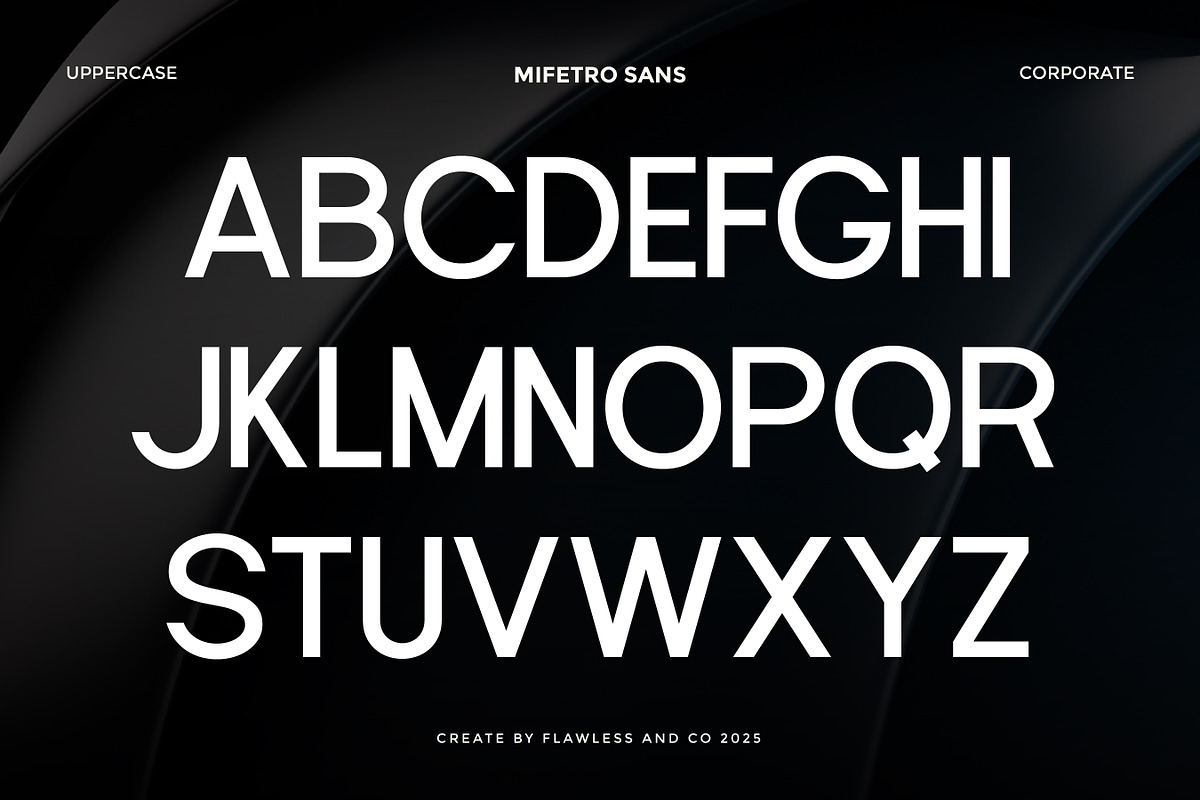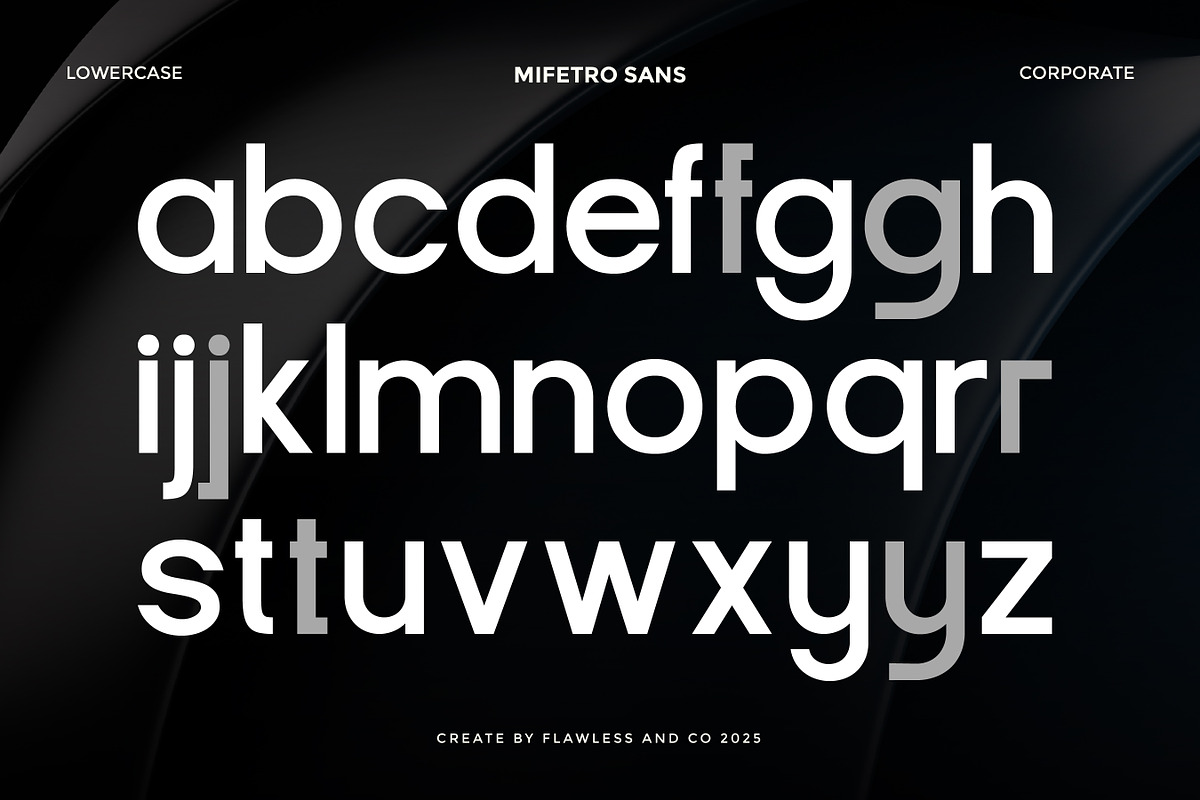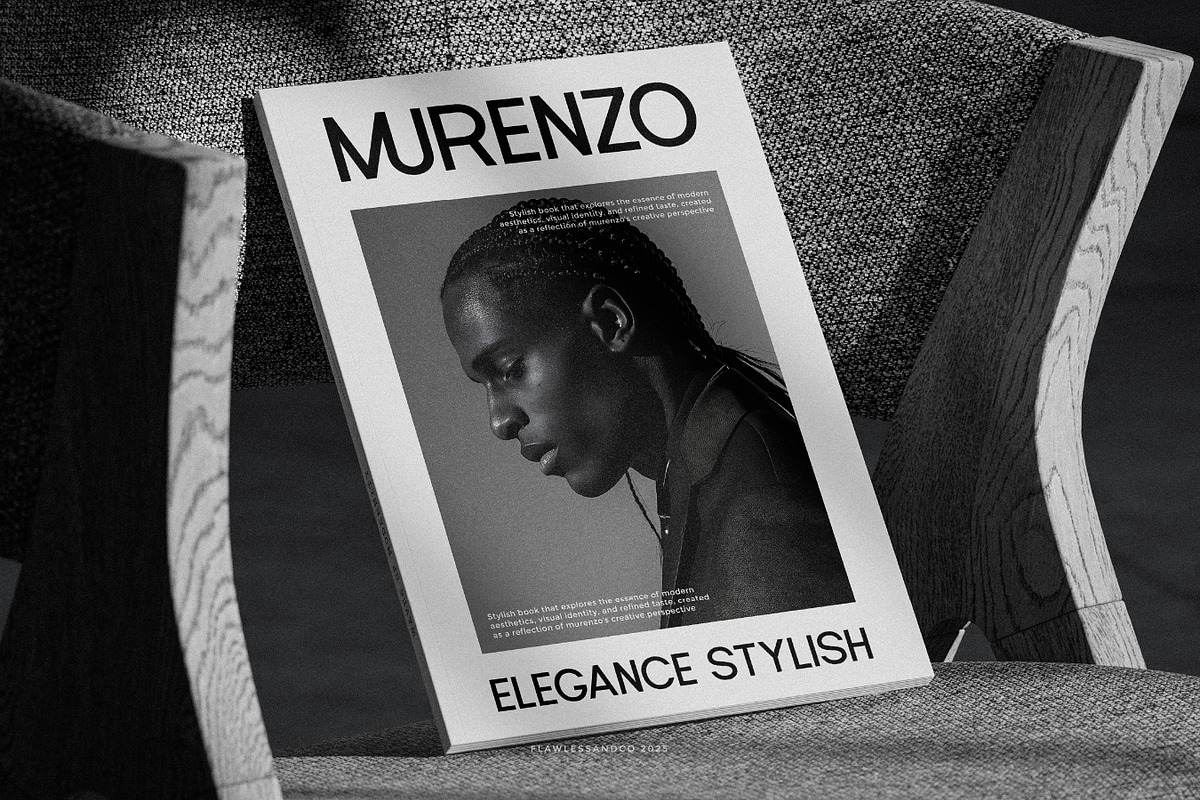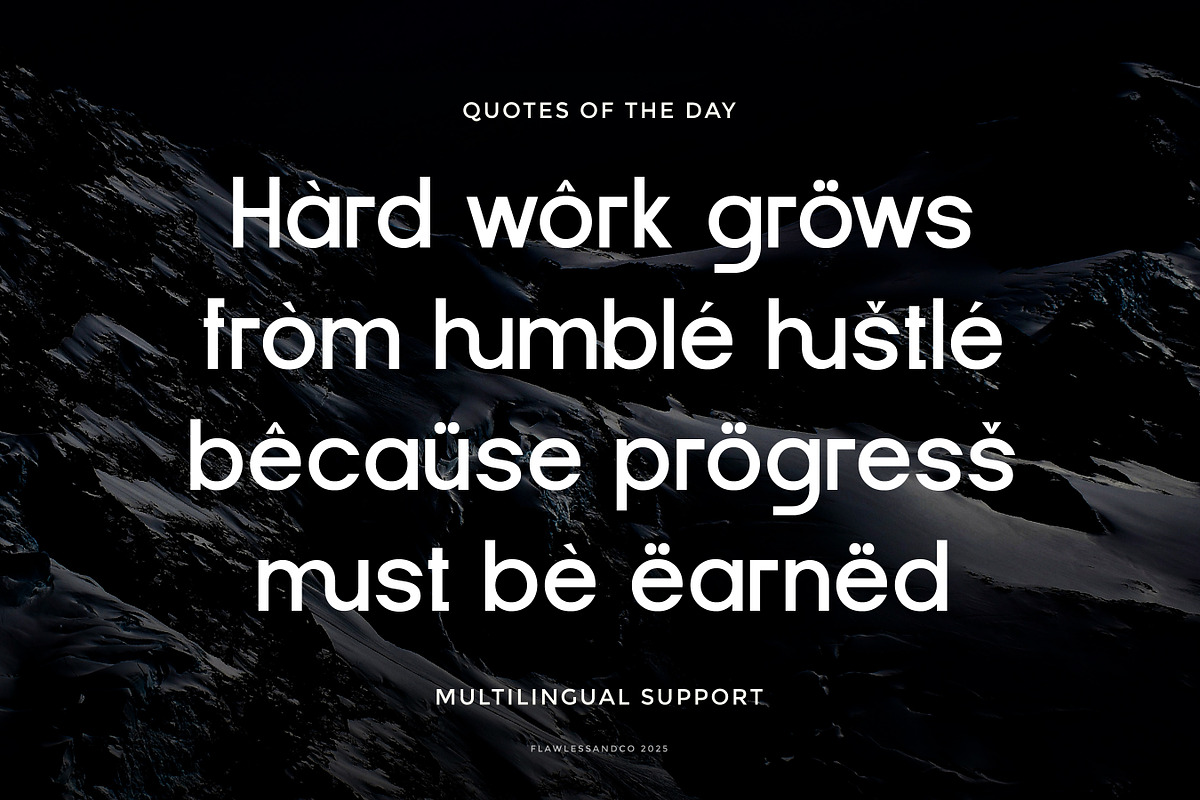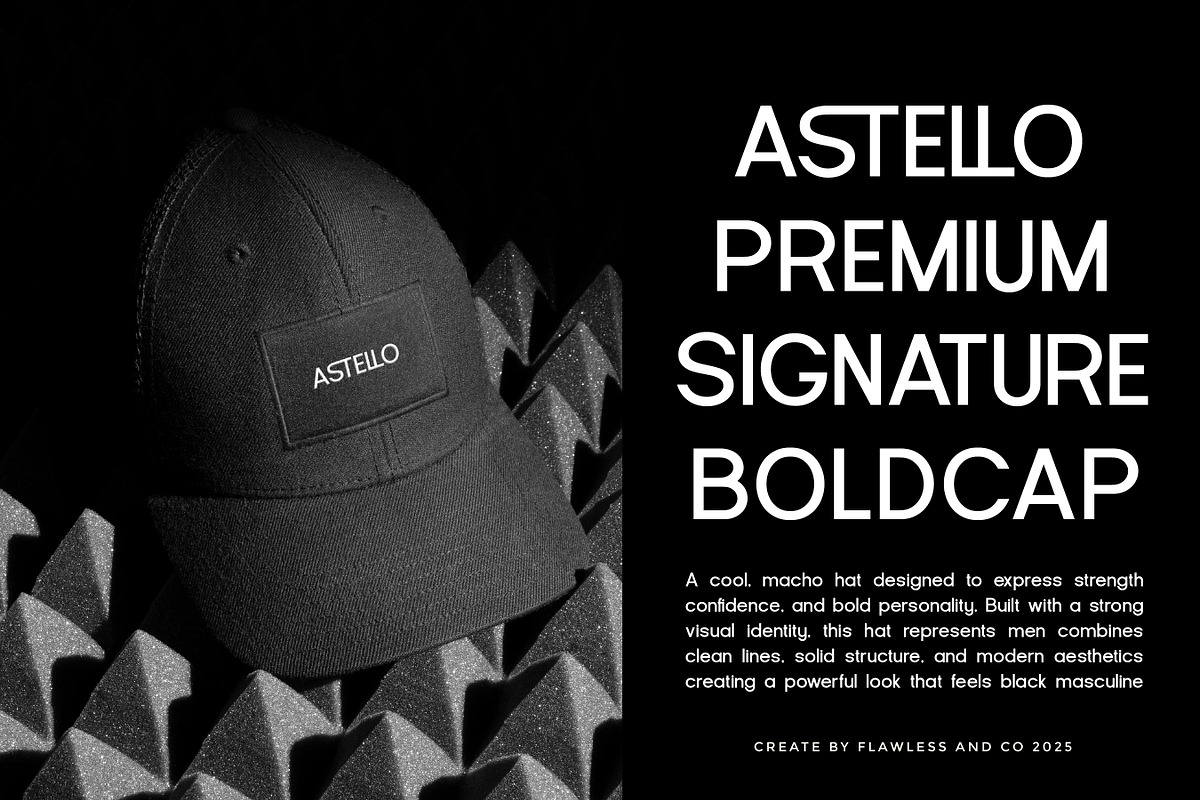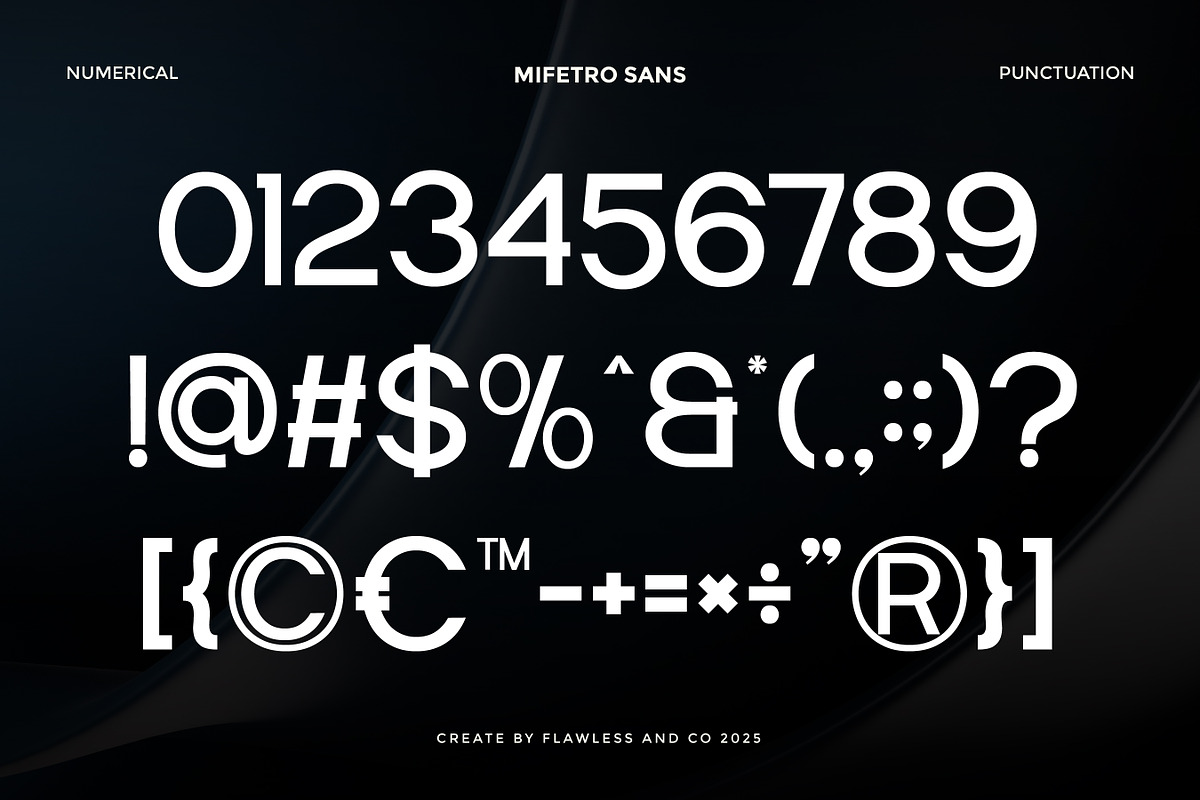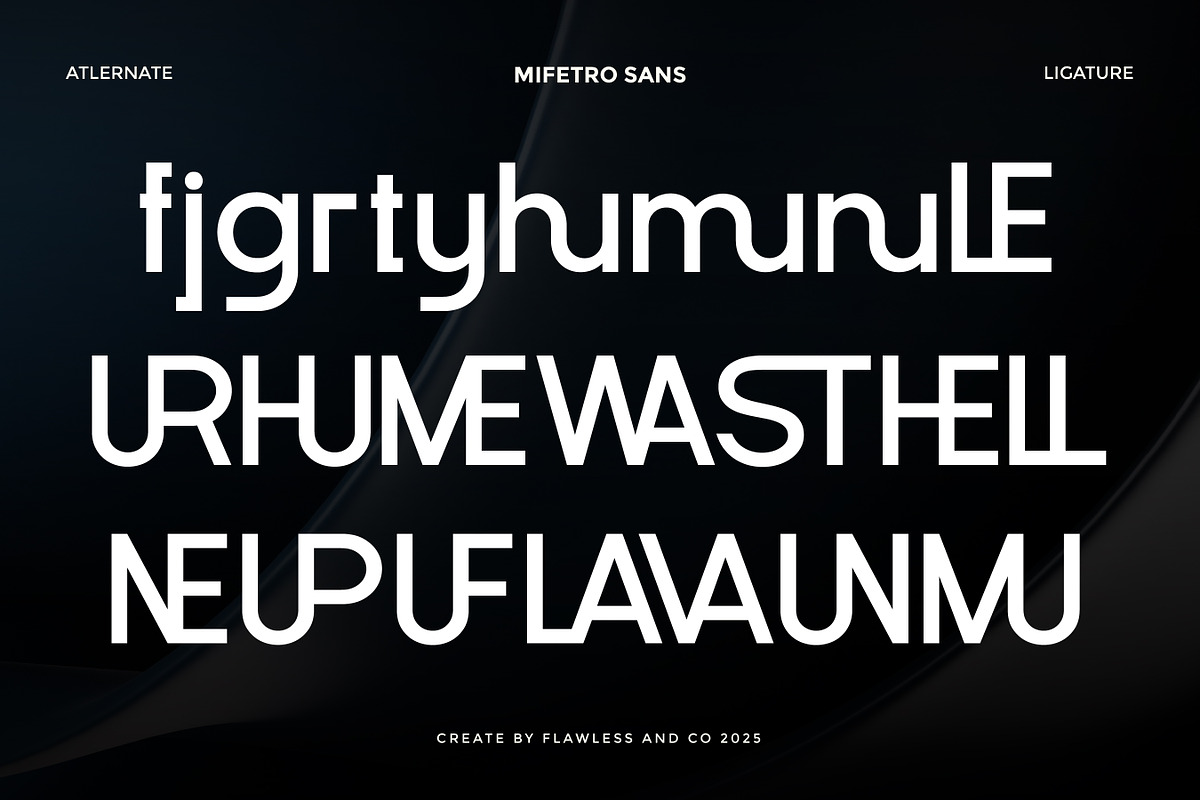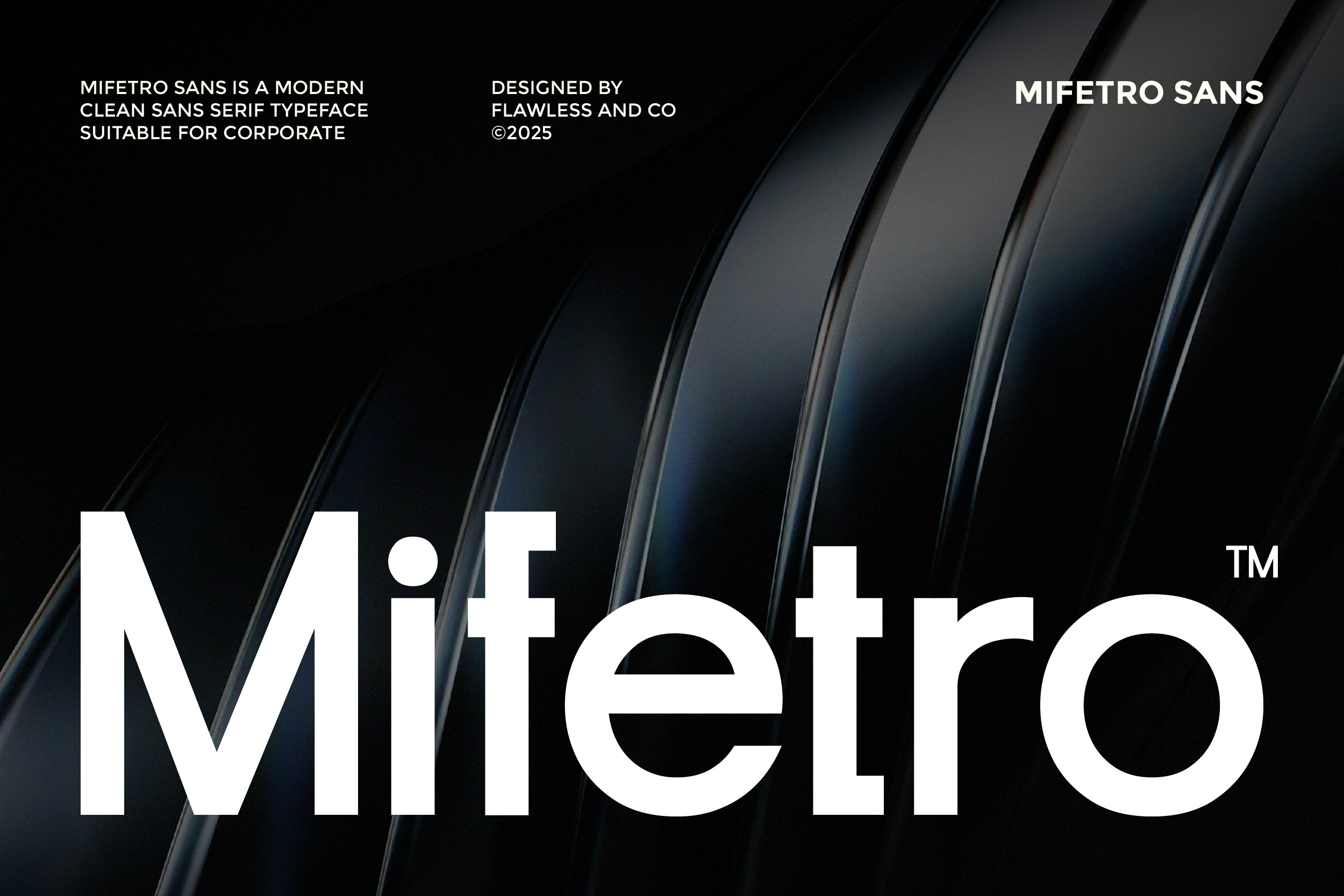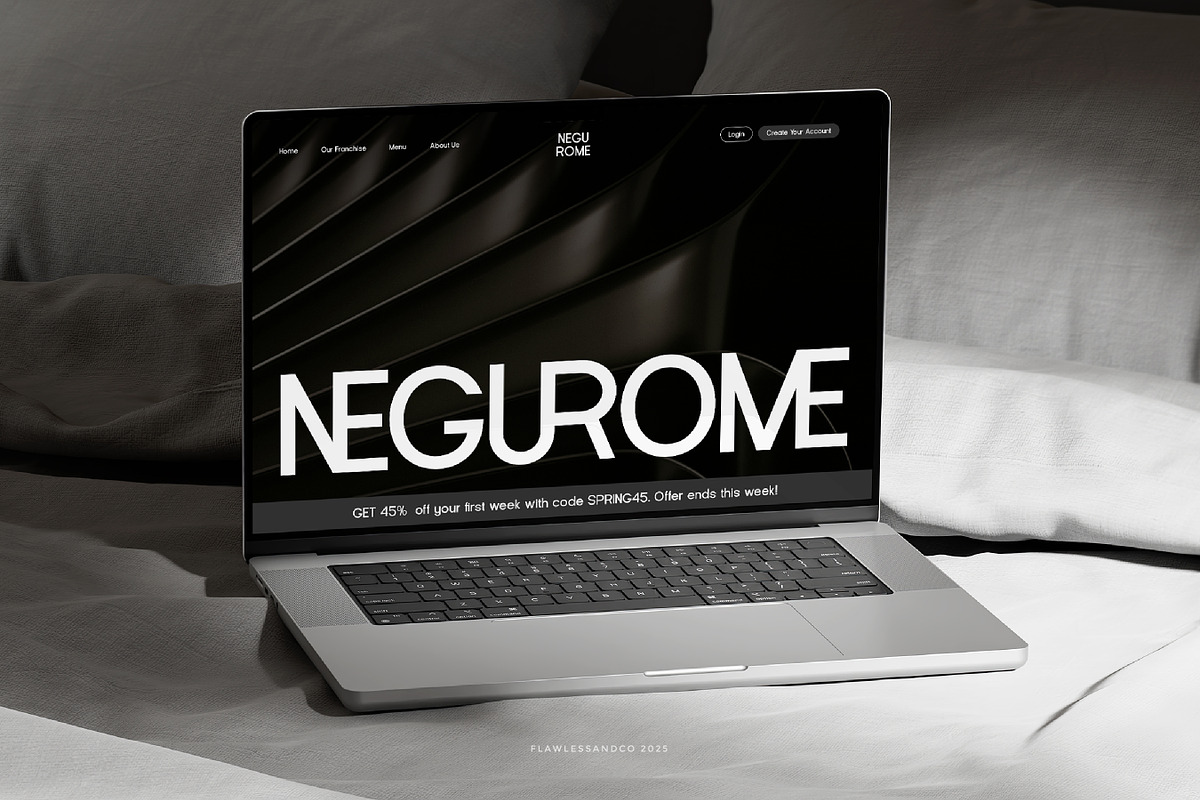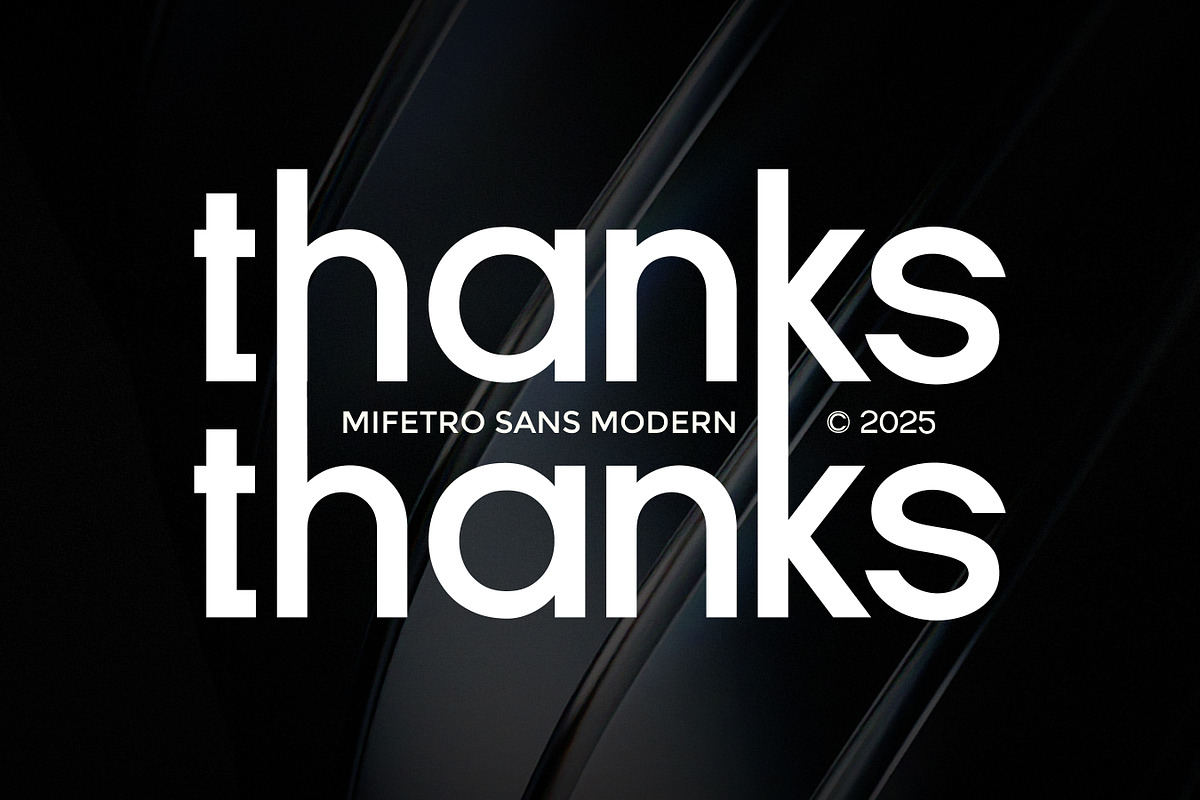
Mifetro - Modern Sans Serif Font
Mifetro is a modern clean sans serif typeface crafted for professional and corporate design needs. Built with precise geometry, balanced proportions, and clear letterforms, Mifetro delivers a sleek and contemporary appearance that communicates clarity, confidence, and reliability.
Who Should Use Mifetro?
Mifetro is ideal for professionals and designers who need a clean, modern, and reliable sans serif typeface. It’s especially suited for corporate brands, business owners, and startups looking to build a strong and trustworthy visual identity. Graphic designers and branding specialists will appreciate Mifetro for logos, company profiles, presentations, and marketing materials that require clarity and professionalism.
Suitable for:
- Corporate branding & identity
- Business logos and company profiles
- Website and UI/UX design
- Mobile apps and dashboards
- Presentations and pitch decks
- Editorial layouts and reports
- Marketing and promotional materials
- Clean and professional digital projects